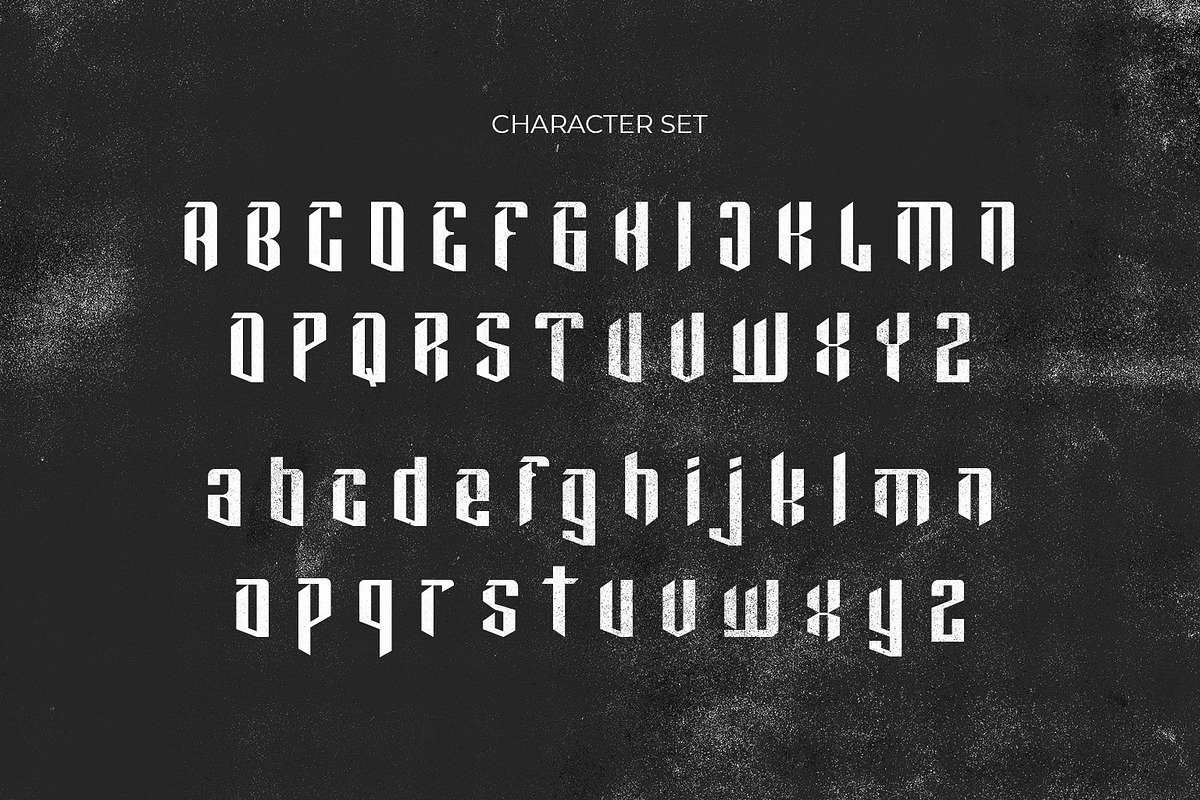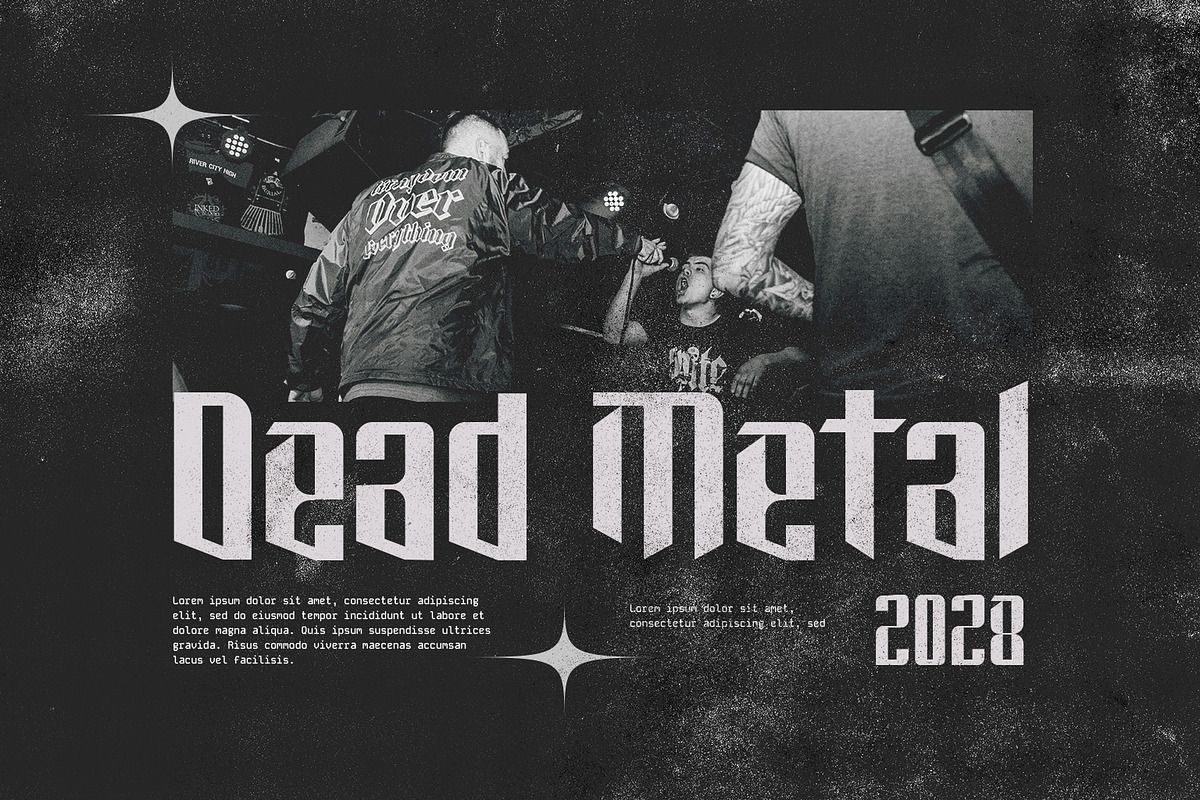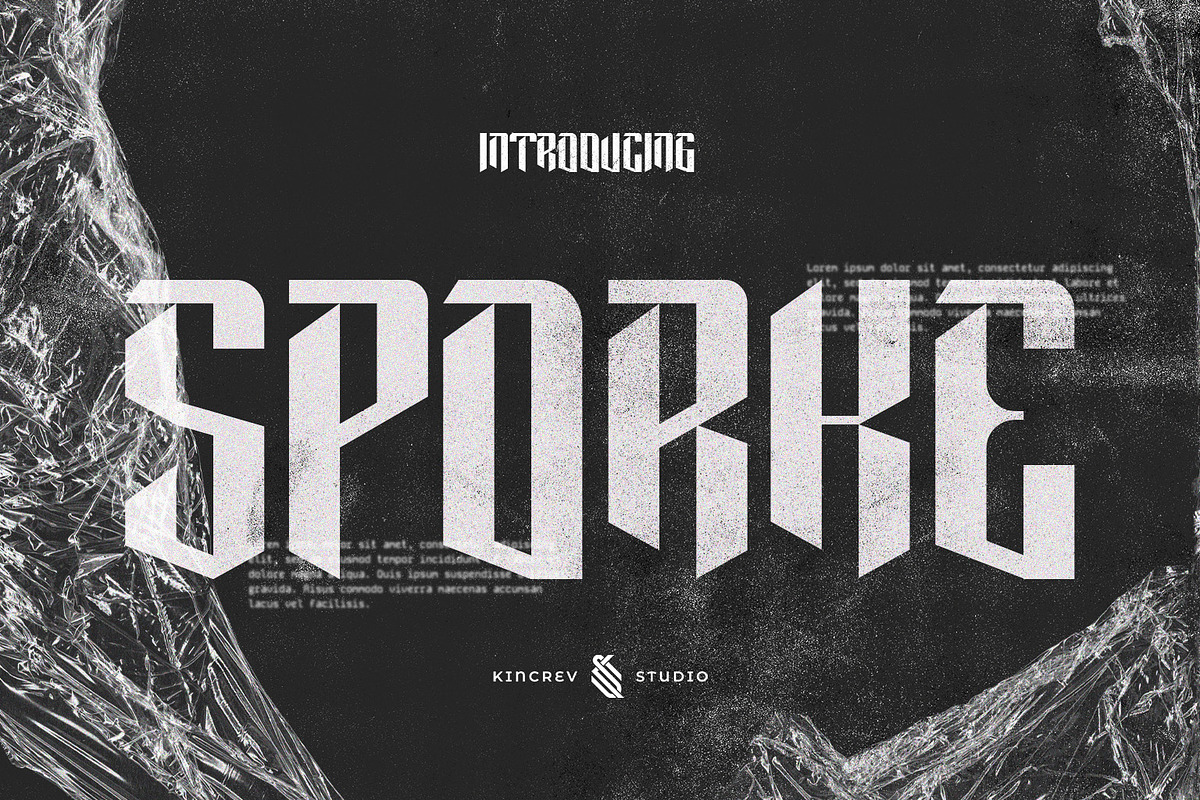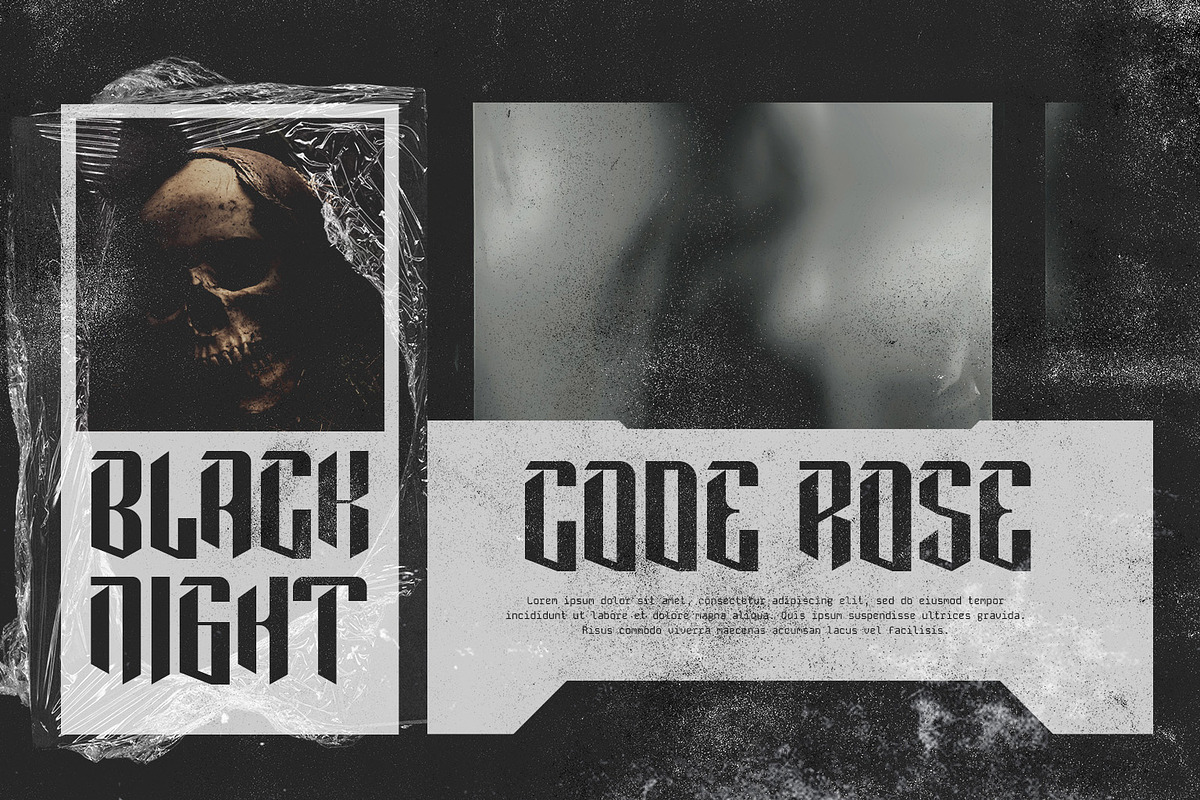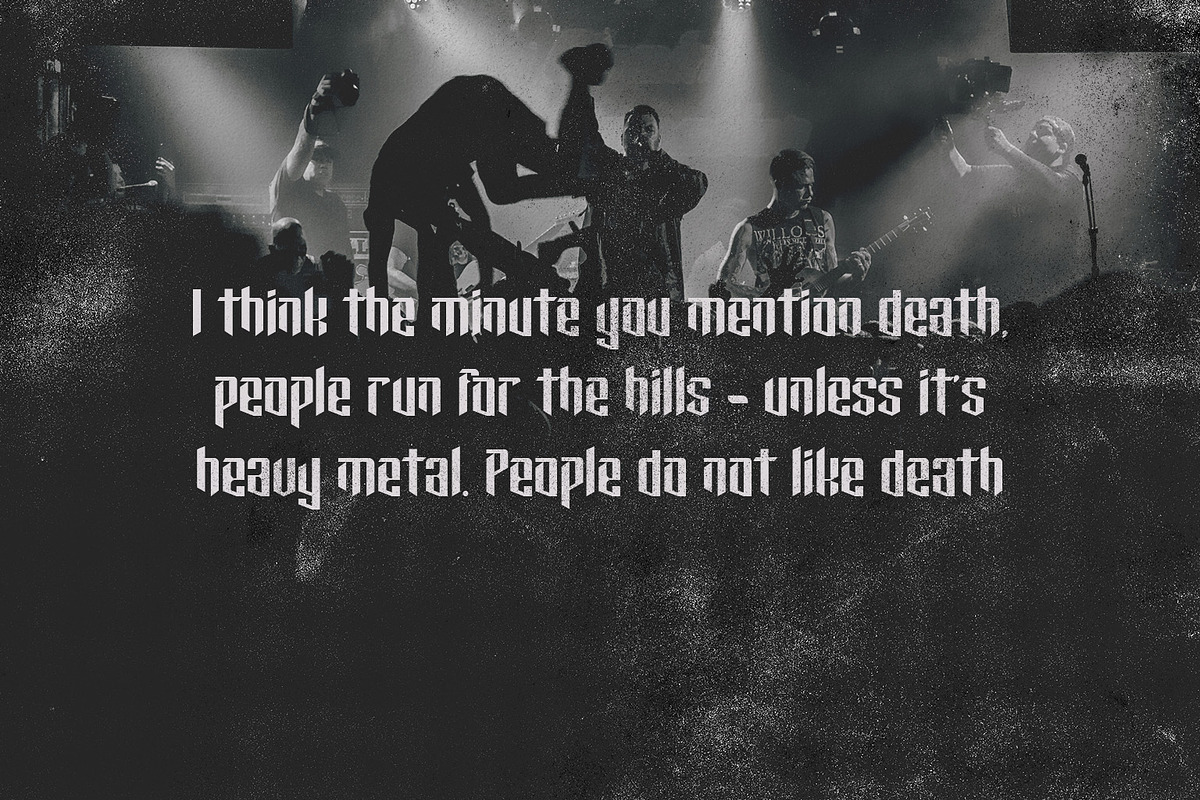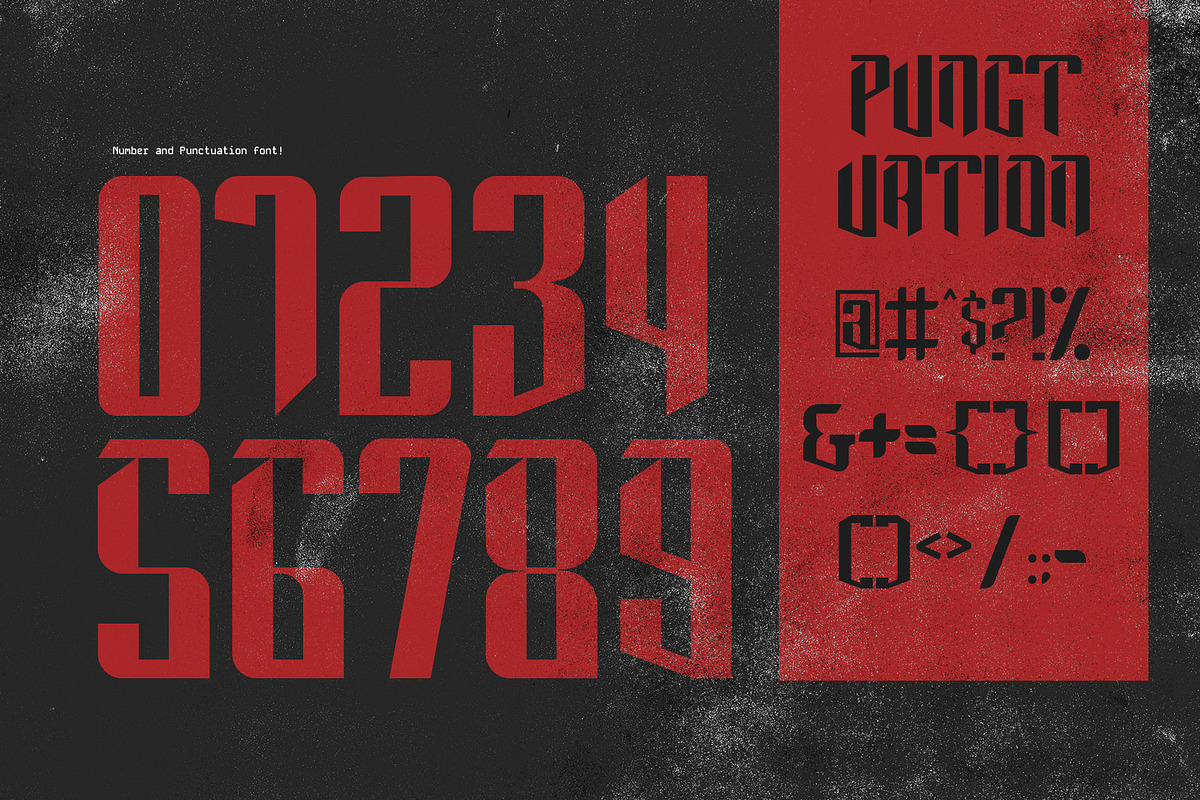
Sporke
Hello, Everyone! Ready to make your branding design outstanding? If you need to create a creative, bold, and modern look for your business, work on a poster for an event, or whatever your projects are, Sporke is the perfect one for you.
Sporke, a display font is font for you to get your designs with creative, bold, and modern look. It is made in uppercase & lowercase letters which are simple and easy on the eyes and nice to look at, and easy to read. This font is designed to bring your brandings to life and add a touch of sporty modern, bold, fun and style.
Sporke fits for any design projects, such as posters, banners, logos, book covers, album covers, quotes, invitations, greeting cards, name cards, headings, printed products, merchandise, social media, etc. Find out more ways to use this font by taking a look at the font preview.